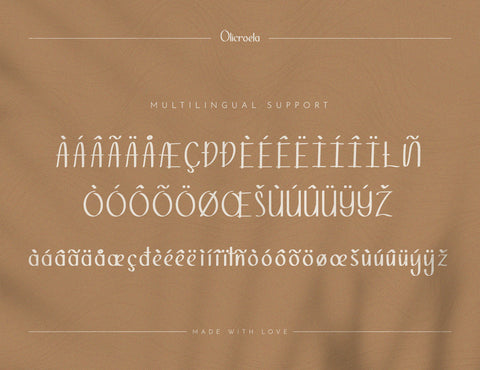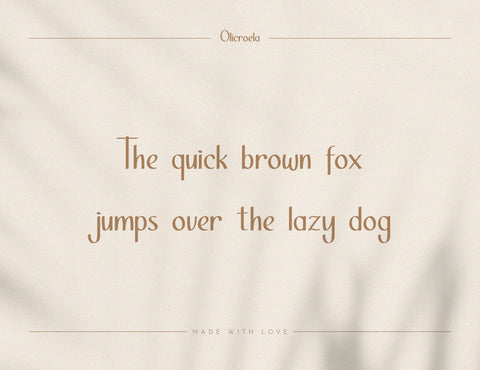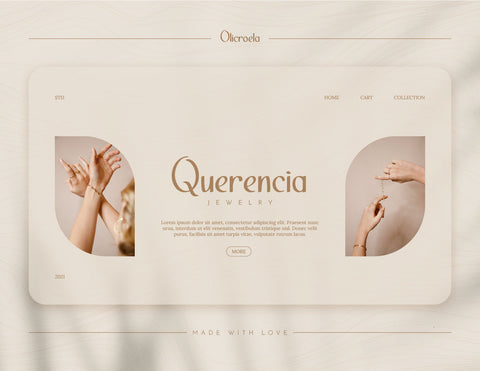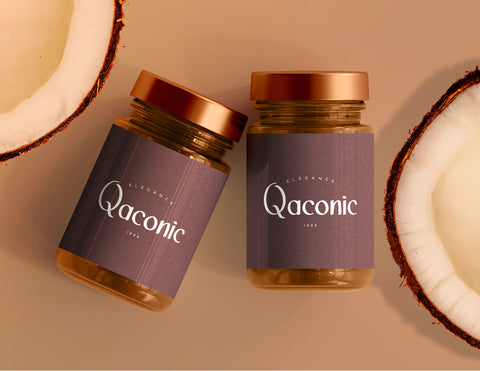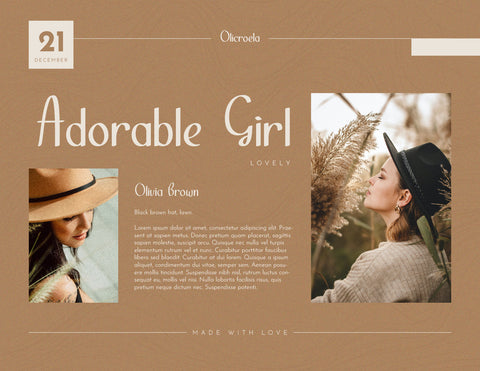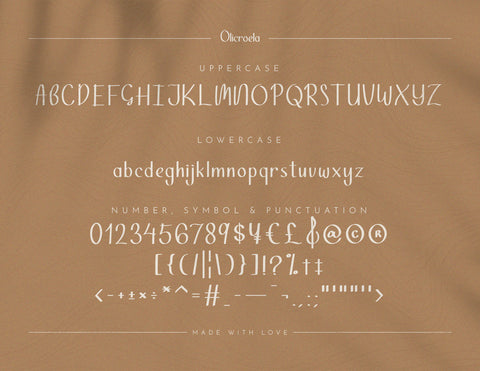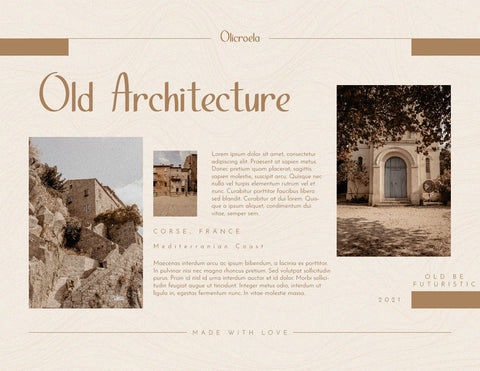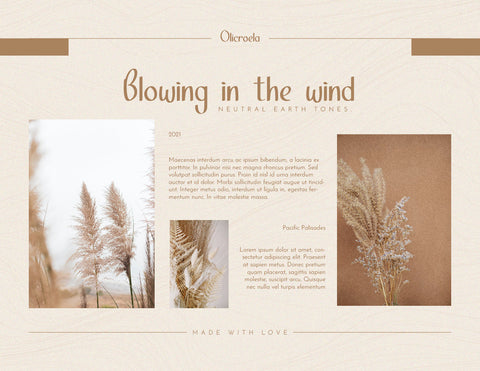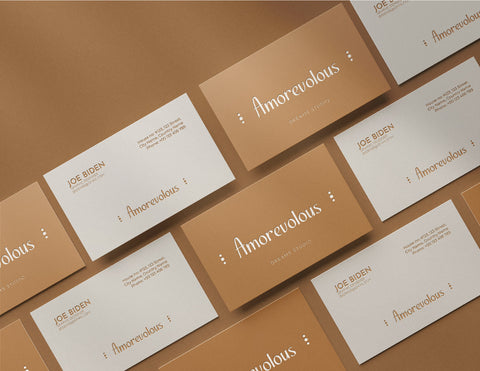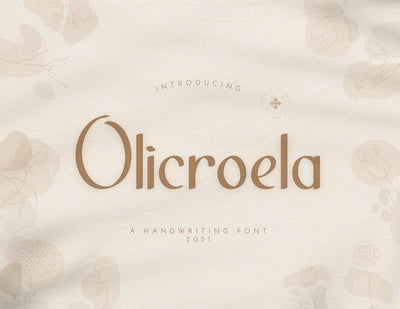
Olicroela Display Font
Olicroela is the one of new Display Font. Support multilingual, basic alphabet, number and symbols. "Olicroela" is perfectly use for any design project. Especially for branding, logos, posters, display, and more. "Olicroela" will bring the touch of beauty on the design projects. Moreover will make your design looks attractive and artistic.